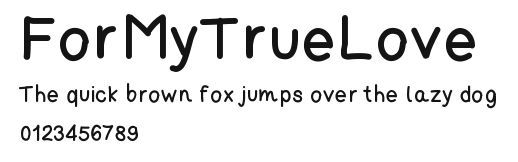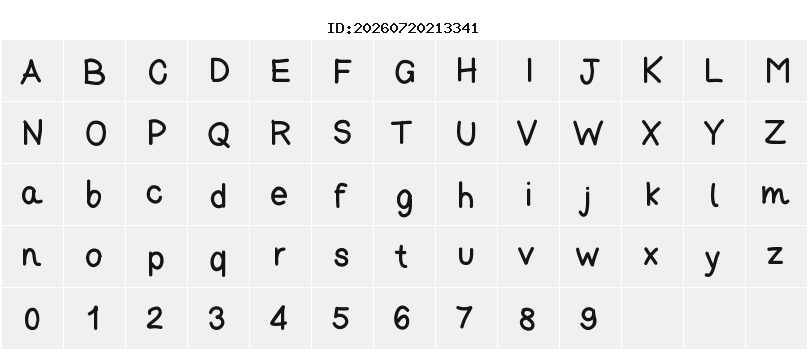
• Font Name: ForMyTrueLove
• Full Font Name: ForMyTrueLove
About ForMyTrueLove.ttf
ForMyTrueLove.ttf is a modern, elegant sans-serif font designed for ultimate readability and visual harmony. Perfect for branding, headlines, web design, and print materials.